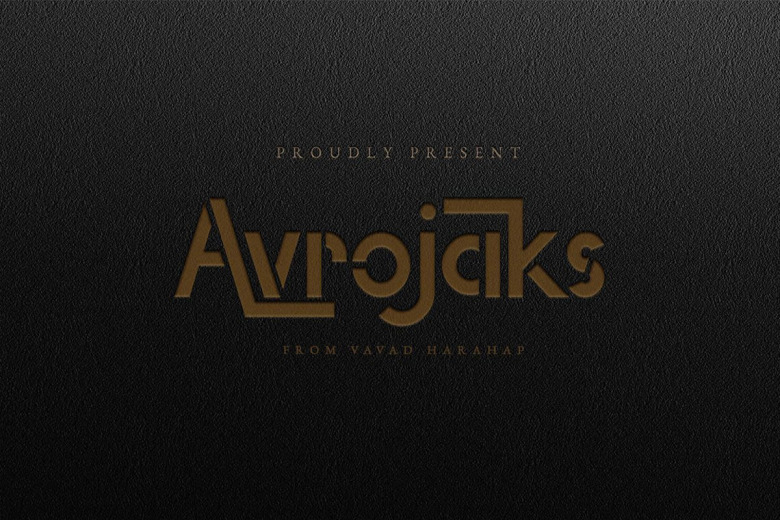
Avrojaks Font
Avrojaks Font is a simple and distinct display font. This type of font perfectly made to be applied especially in headlines which is need a standout font, and the other various formal forms. It celebrates abstract shapes in all their eclectic brilliance.